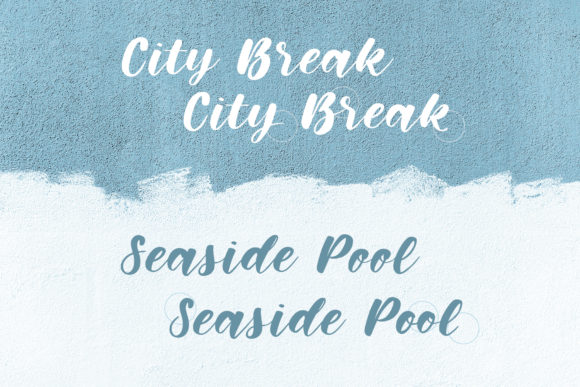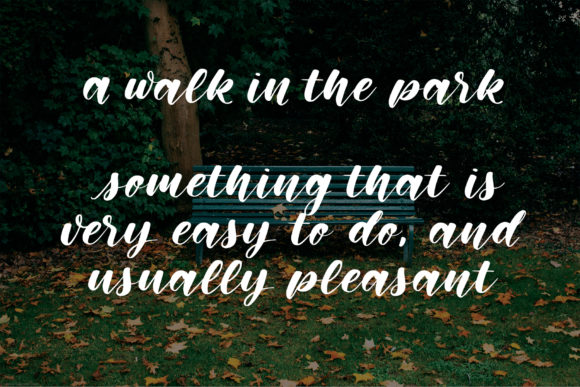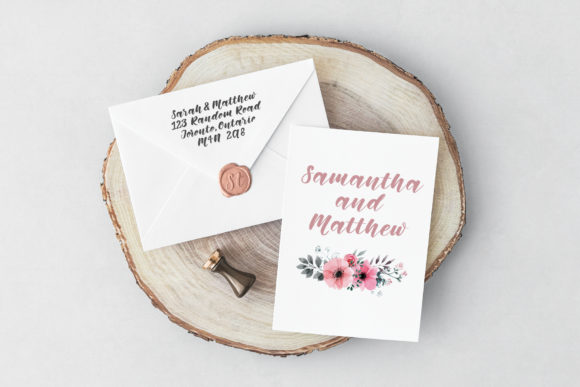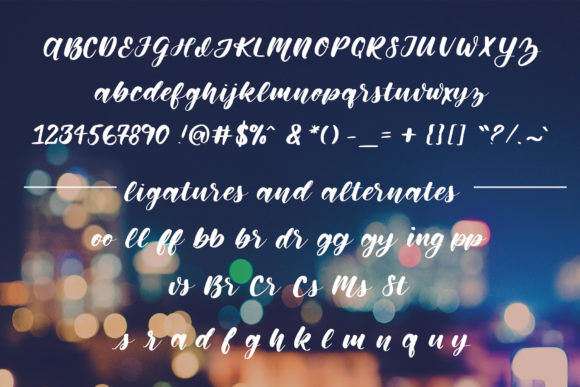
Memphis Park Font
About Memphis Park Font
Memphis Park is a bold handwritten font, carefully handcrafted to become a true favorite. Its casual charm makes it appear wonderfully down-to-earth, readable and, ultimately, incredibly versatile. This font will look outstanding in any context, whether it’s being used on busy backgrounds or as a standalone headline!